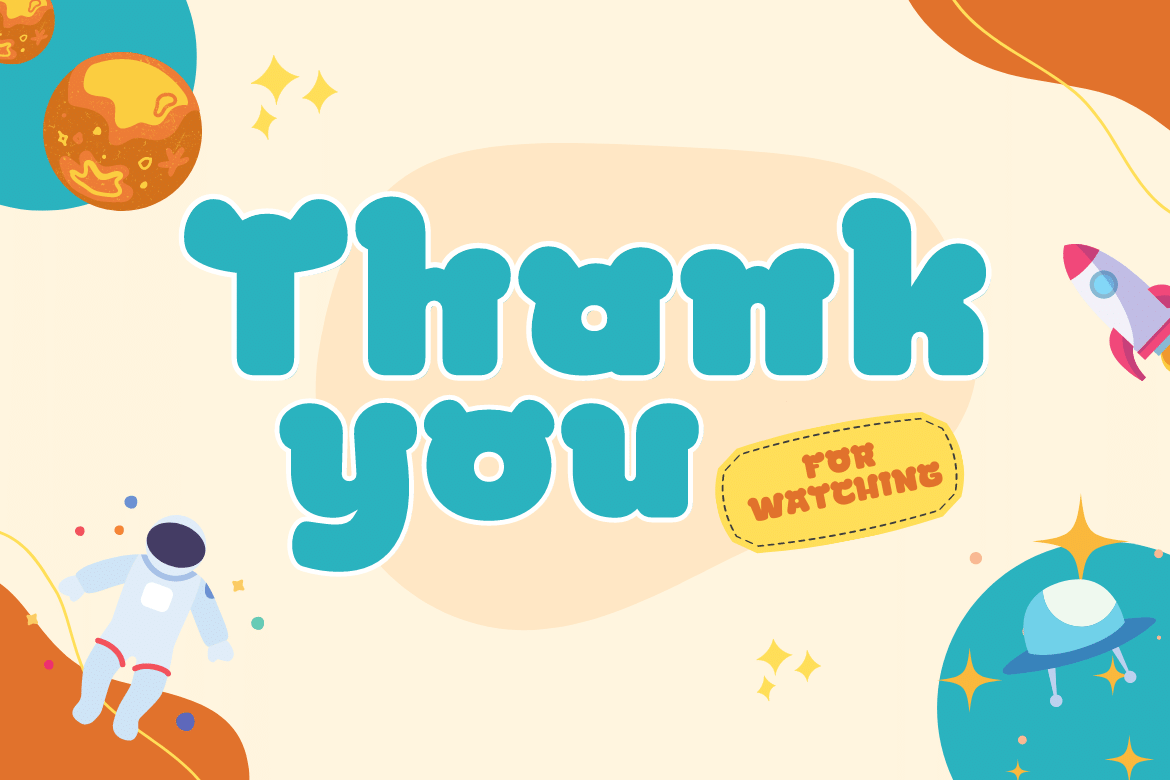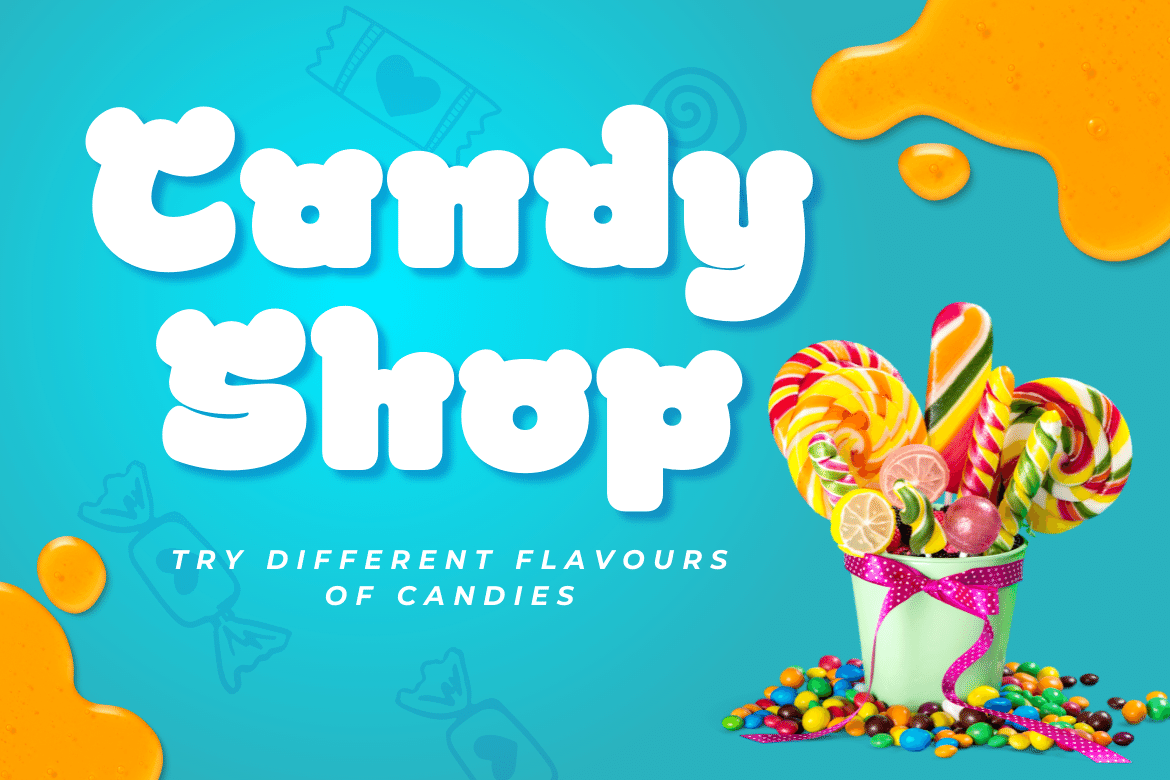
Gencis
introduce Gencis unique display font. You can use this font that has a funny, cute, attractive, and playful shape for various things in your special project. It can be used as the title of your news article, or it can be used in your search button. Or you can even use it as a subtitle in various visual media to promote your company.